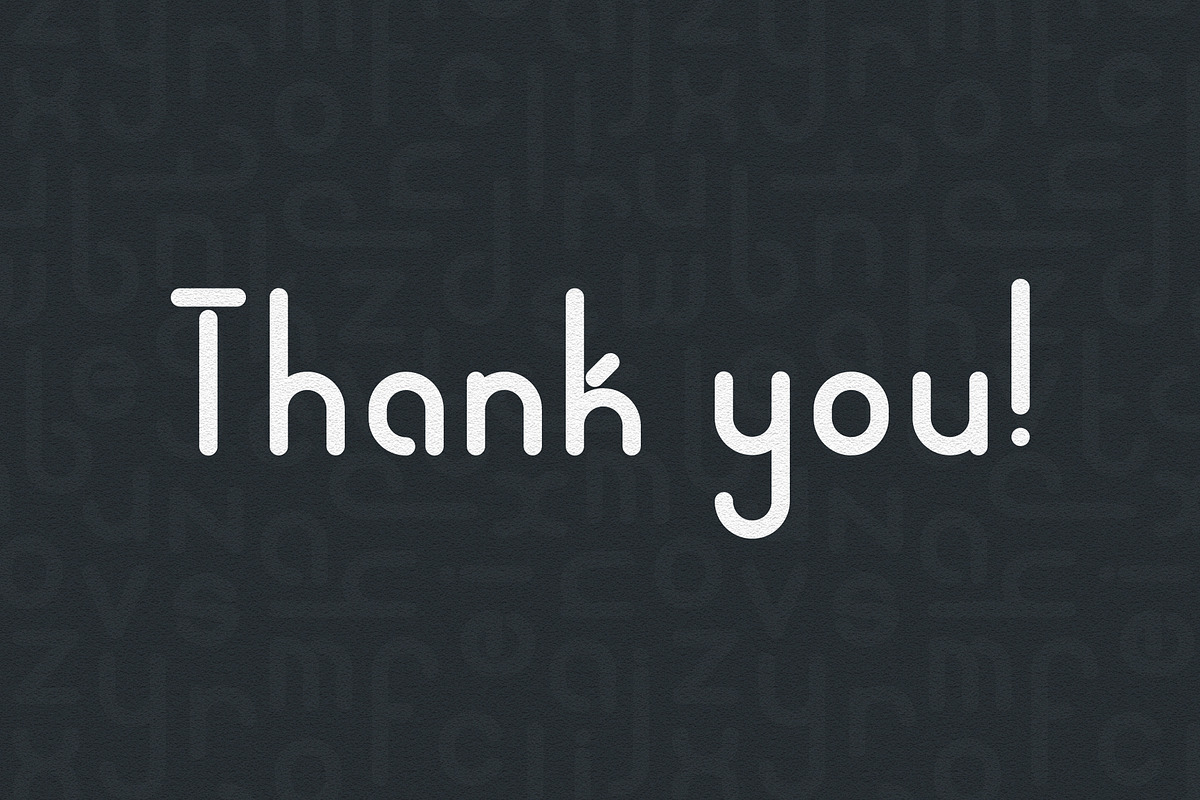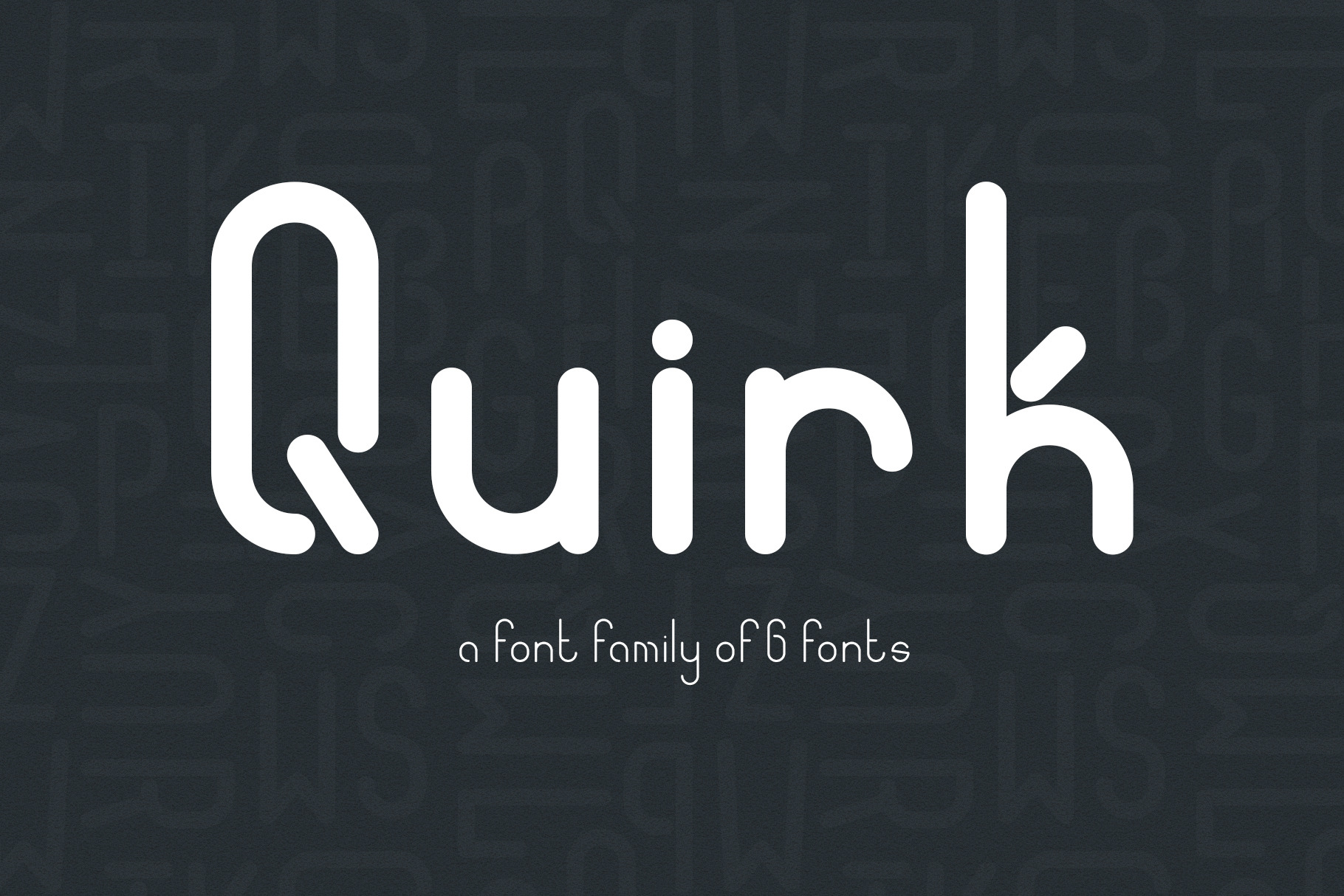
Quirk font family
Quirk font family is a perfectly geometric font for your design.
It comes in both Regular and Italic versions.
Each style has 91 glyphs.